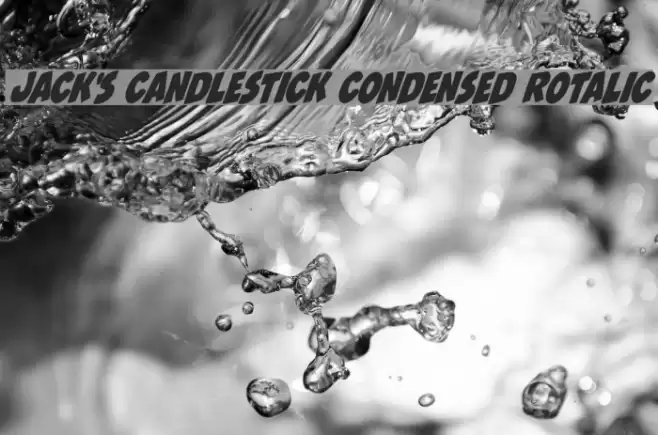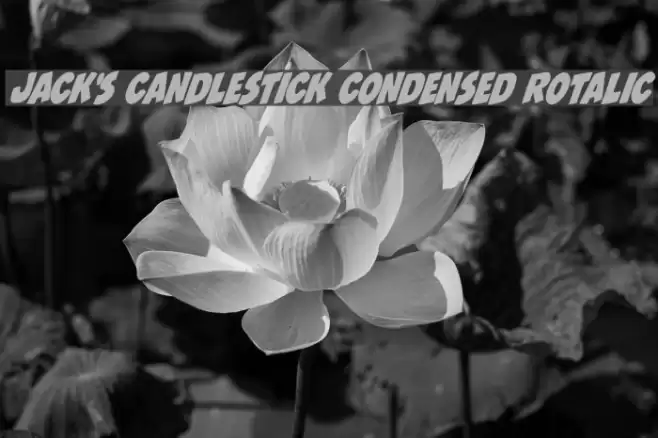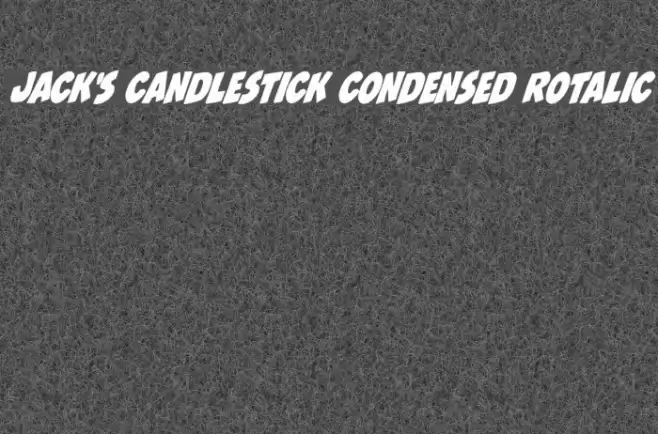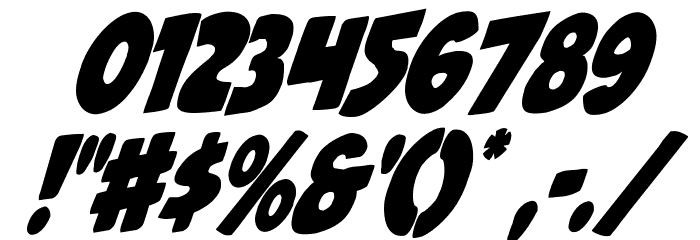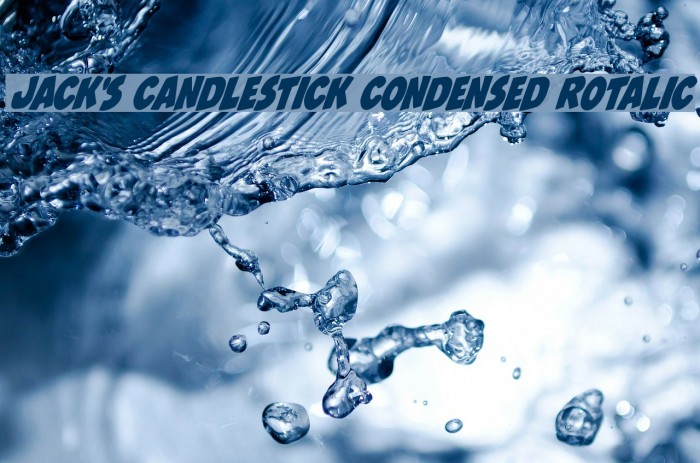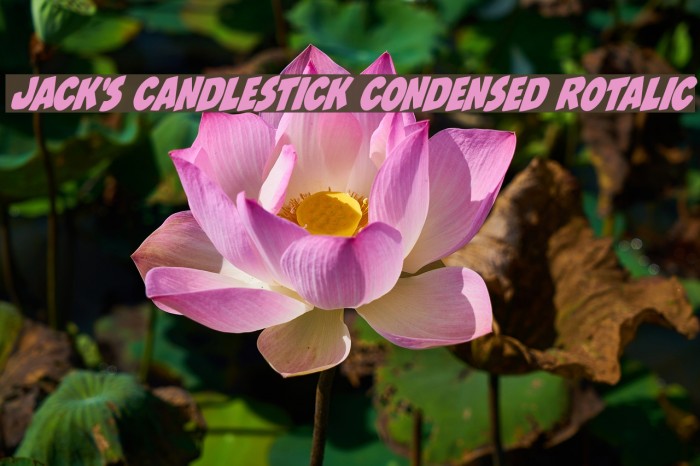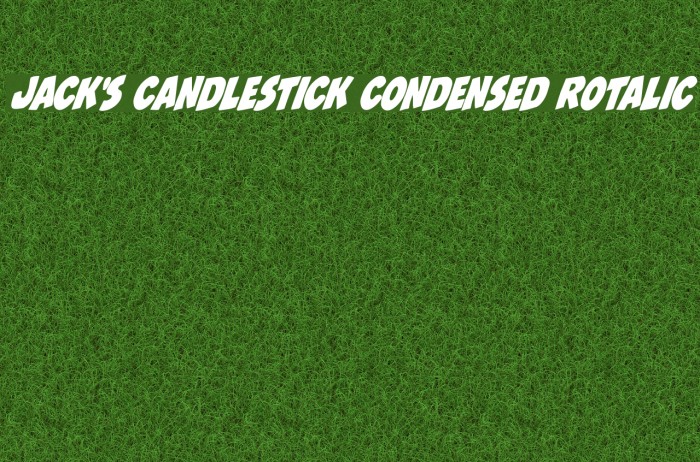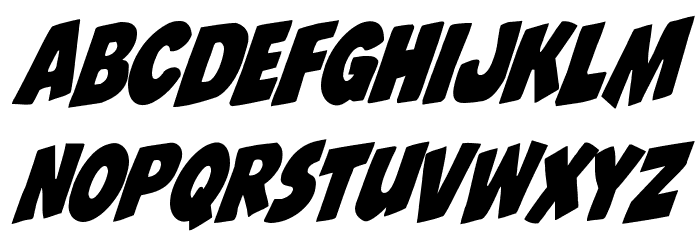
Jack's Candlestick Condensed Rotalic Font
Jack's Candlestick Condensed Rotalic Description
This font features a bold and dynamic style with a condensed width and a distinct italic slant, giving it a sense of movement and energy. The characters are thick and robust, with a playful yet assertive appearance. The uppercase and lowercase letters maintain a consistent style, with rounded edges and a slightly exaggerated tilt. Numbers and special characters follow the same bold and slanted design, ensuring uniformity across all glyphs. The font's strong presence makes it ideal for attention-grabbing designs.
A bold, condensed, and italic font with a dynamic and energetic style from Comic fonts.
- Proposed Projects: Ideal for posters, headlines, branding, and any design requiring a bold statement.